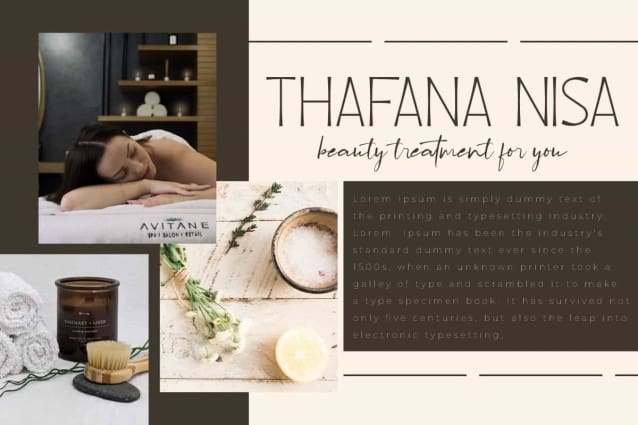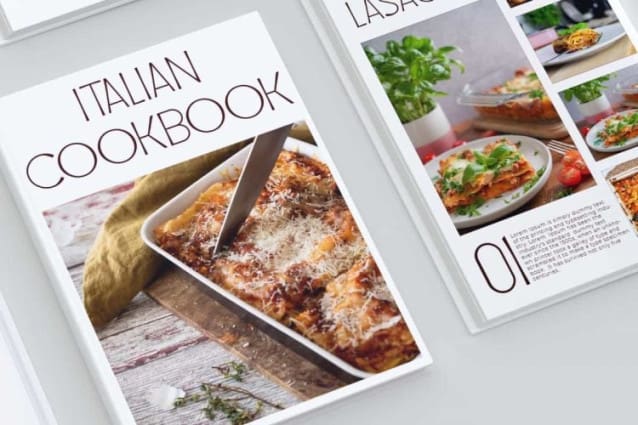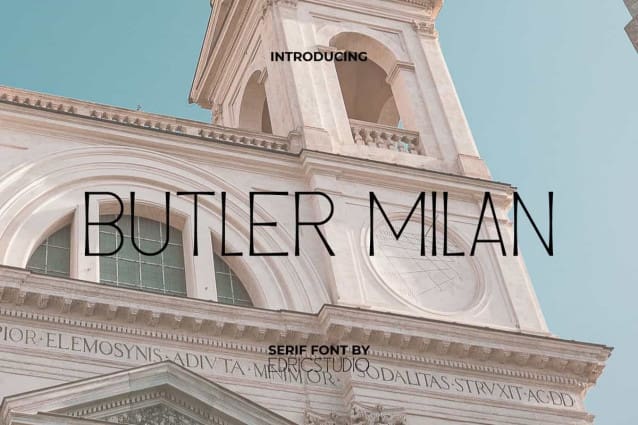
Butler Milan Font
Butler Milan Font, is a minimalist yet stunning serif display font in a beautiful way. This combination of thick or thin lines and the characteristic of serif “counterstroke” is perfectly created to create an impression of elegance and stylish at the same time. It will be suitable for any business, such as accessories, art, beauty product, entertainment, event organizer, café, fashion, food and beverages, photography, printing, publishing, restaurant, writer, and many more!
Butler Milan Font comes with full set of ALL CAPS for Uppercase and Lowercase Basic Characters, Number, a large range of Punctuation, and Symbol. It has cool characters set, perfectly managed with well spaced and kerning. Butler Milan Font will be able to complement for any design (with extended license) including: brand image, cover, custom design, label, merchandise, packaging design, poster, quote, screen print, signage, stationery, sticker, title, website, etc.